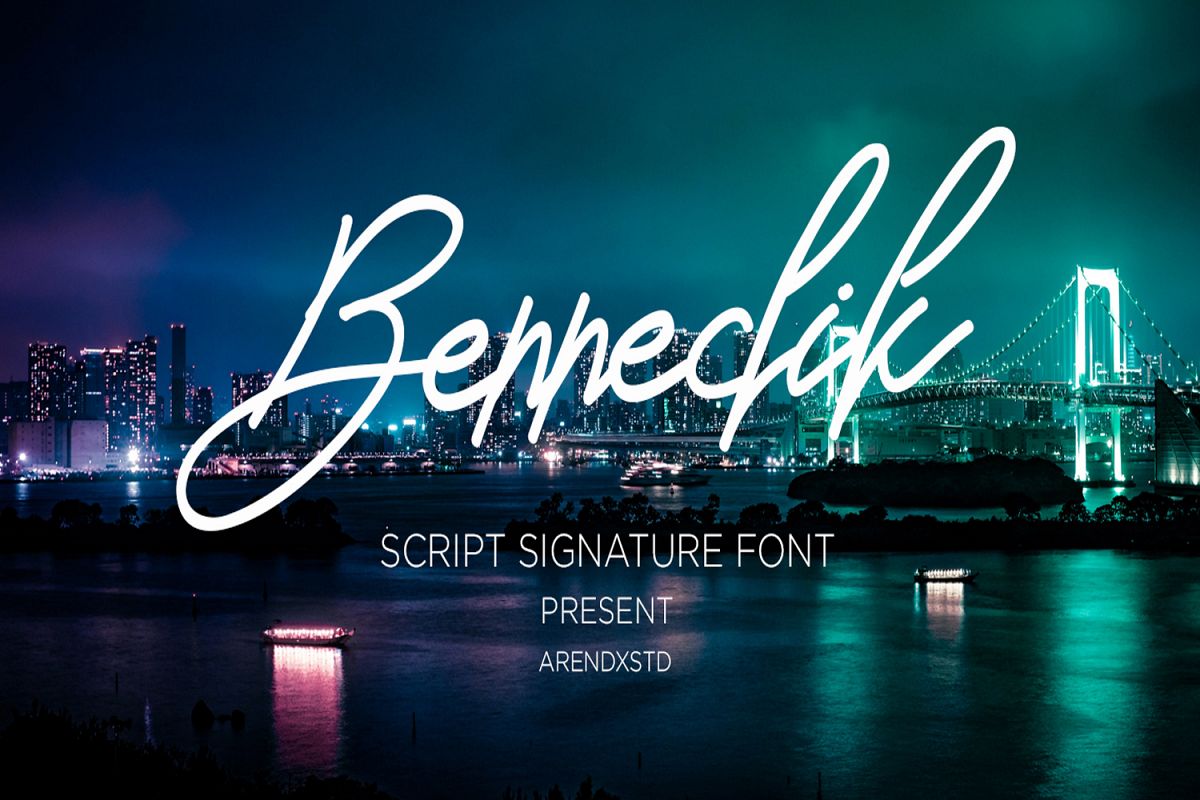
Bennedik Signature Typeface
Bennedik
Give a touch of elegance in each of your projects with Bennedik, in a modern style that will make your design more grand and attractiveThe feature in Bennedik:1. Uppercase, Lowercase2. Numbers and Punctuation3. Support for multiple languages4. Ligatures5. AlternateEmail me with any questions.